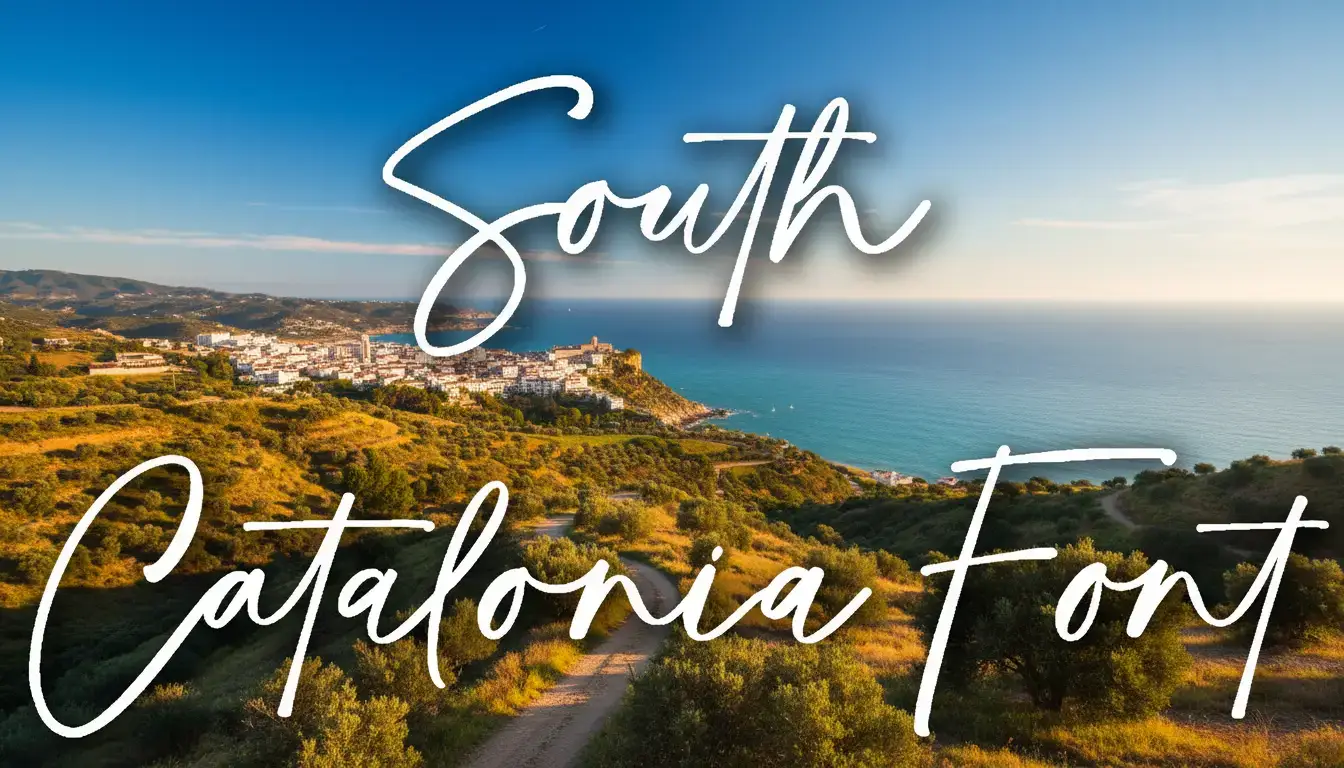
South Catalonia Font
South Catalonia
South Catalonia is a handwritten font. It has a casual, written-with-a-pen look that makes designs feel personal. It's a free download, and you can try it with your own text in the preview above first.
What You Can Type With South Catalonia
South Catalonia covers the full alphabet in upper and lowercase, plus all ten numbers, so you can set names, dates and prices without switching fonts. Everyday marks like &, !, ? and @ are there too. Thanks to its accented letters, it also works for Spanish, French, Portuguese and Italian, not just English.
Where South Catalonia Works Best
Designers usually reach for fonts like South Catalonia when they're making greeting cards, journal pages and friendly social posts. Set it a bit larger than you would a normal text font. Handwriting styles lose their charm once they get too small to read comfortably.
Does South Catalonia support accented letters?
Yes. South Catalonia includes the accented letters needed for Spanish, French, Portuguese and Italian, so it works for more than just English.